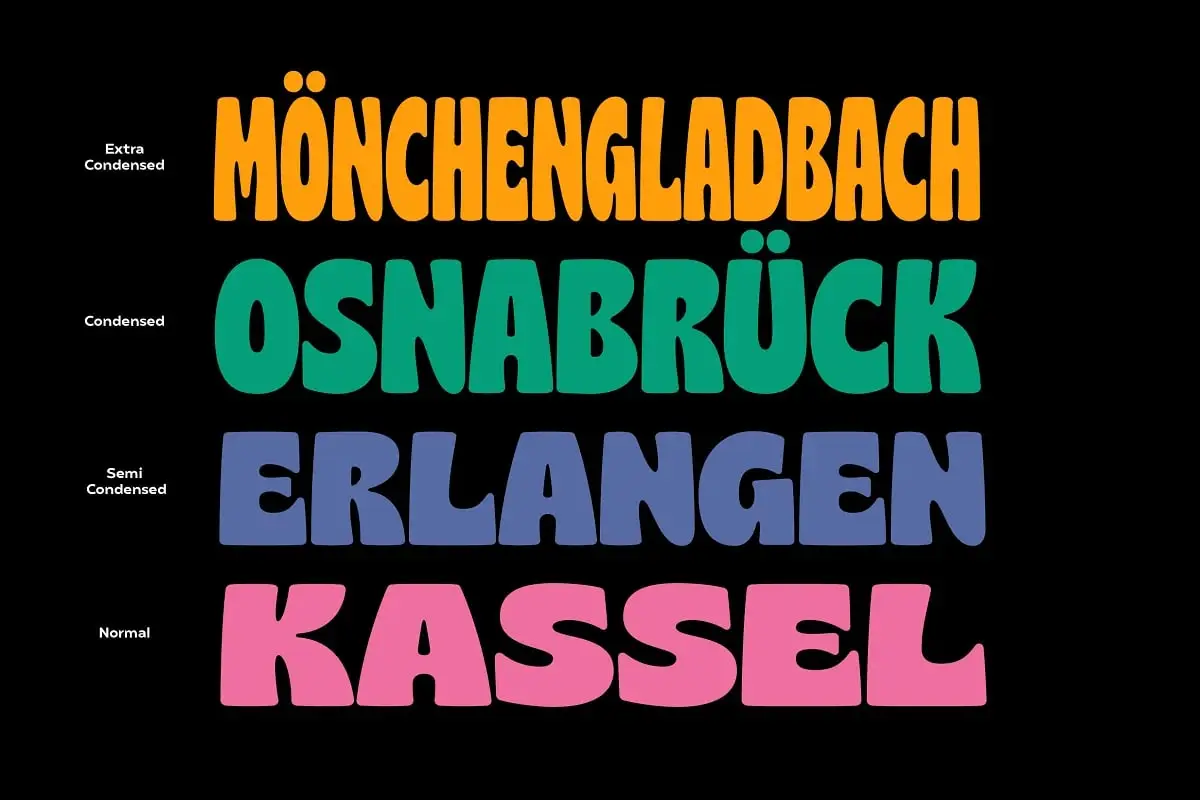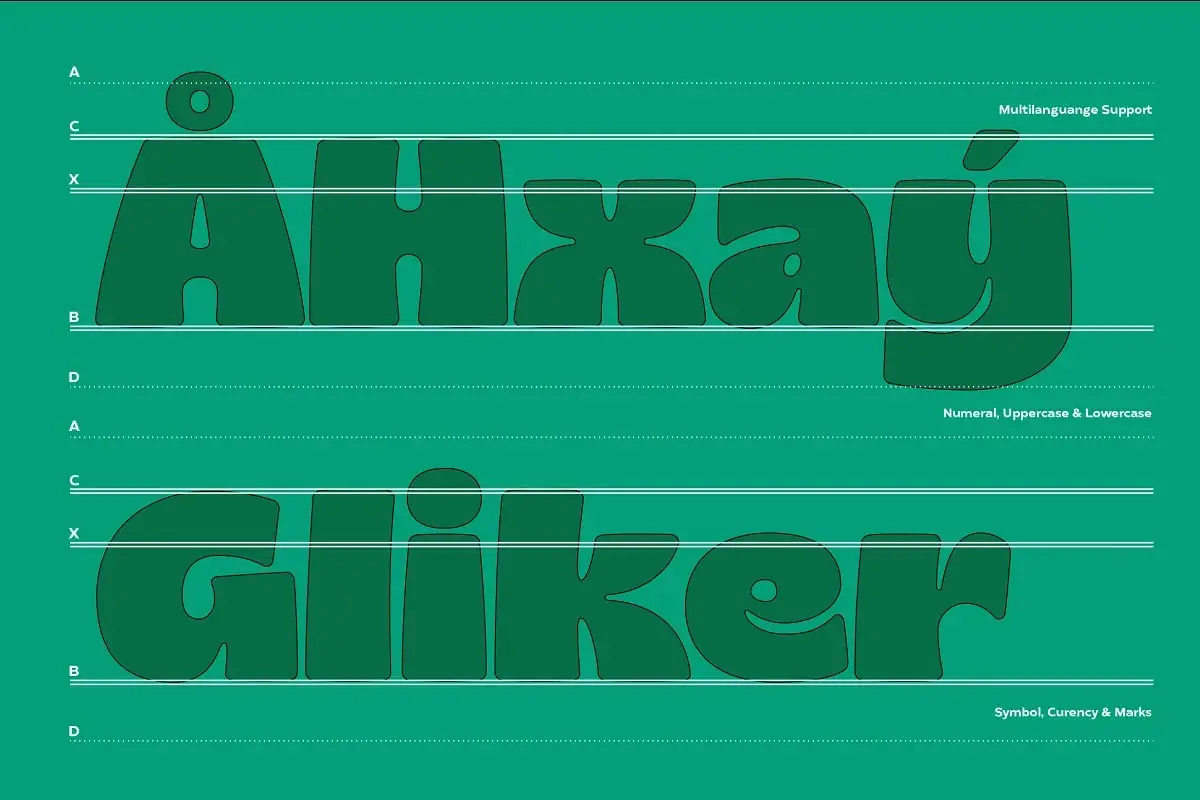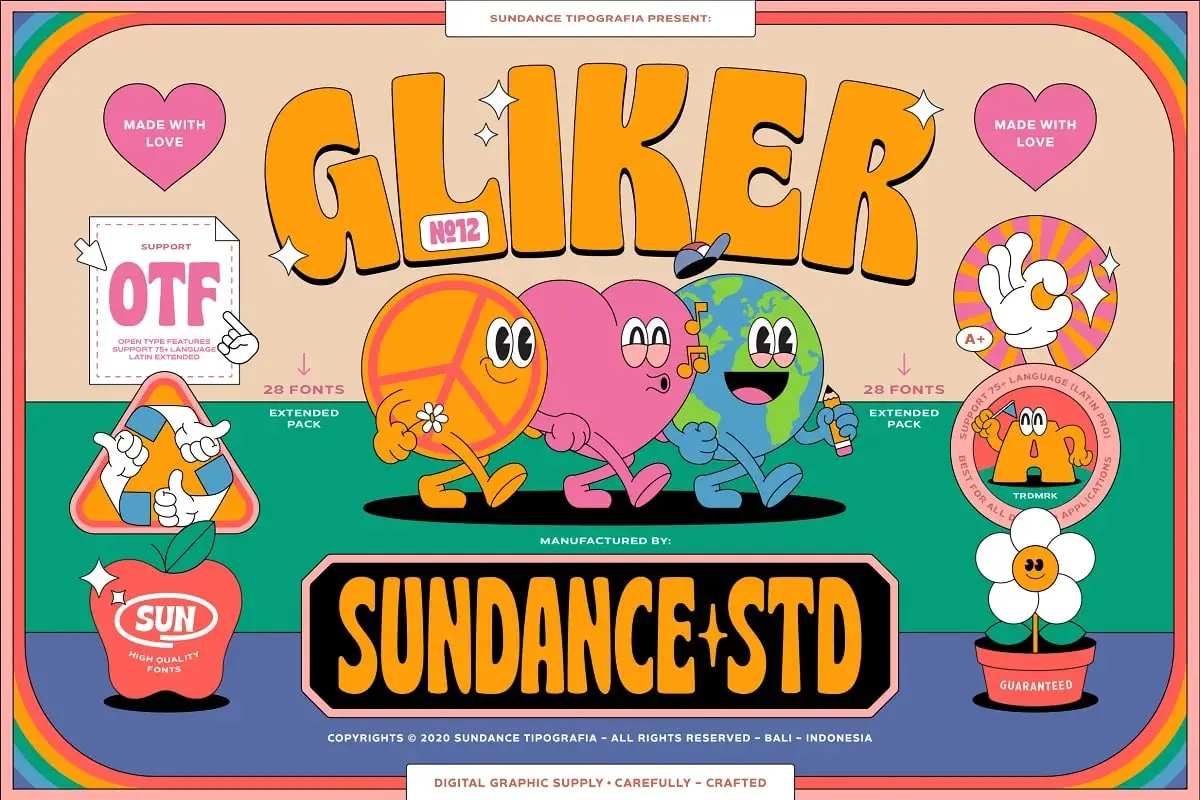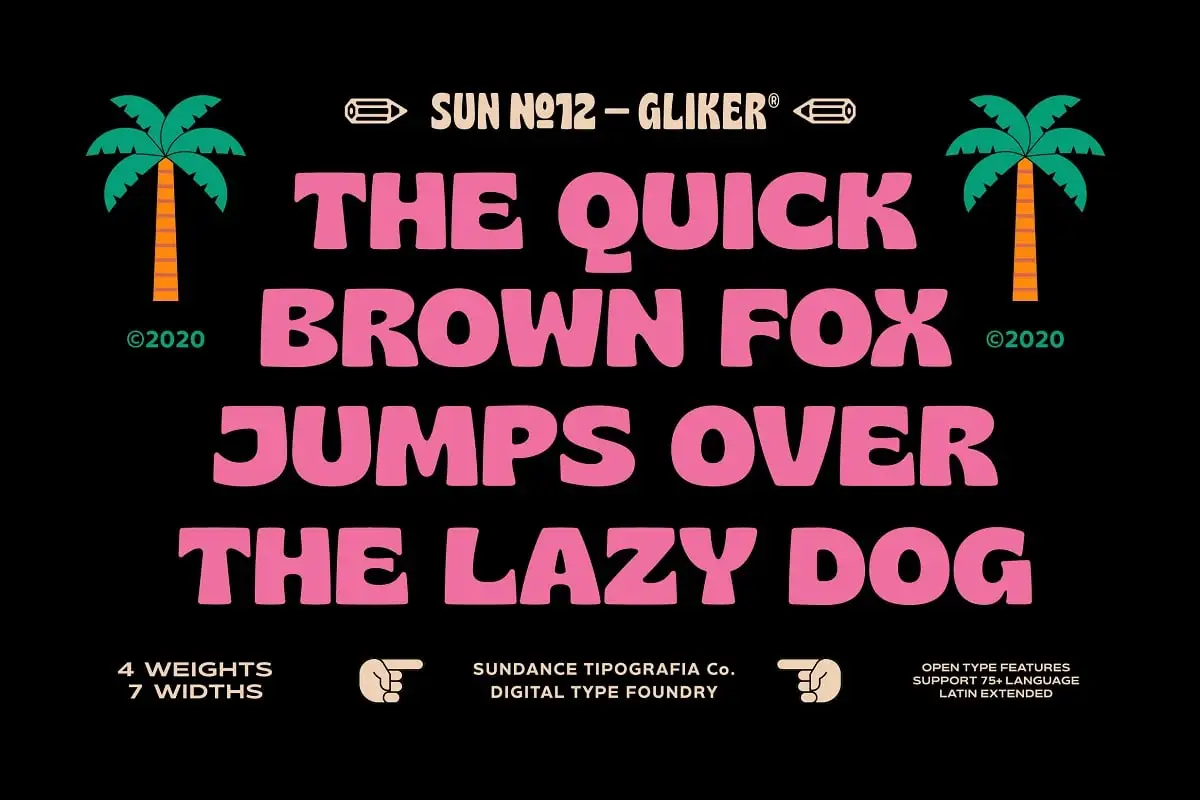
Gliker Font Family By Studio Sun
The Gliker Font Family by Studio Sun offers a versatile selection of typefaces designed to elevate your projects. With a range of styles and weights, this font family is perfect for various applications, including branding, logos, web design, print materials, and user interfaces.
• Styles: Regular, Bold, Italic, and more
• Weights: Light, Regular, Medium, Bold